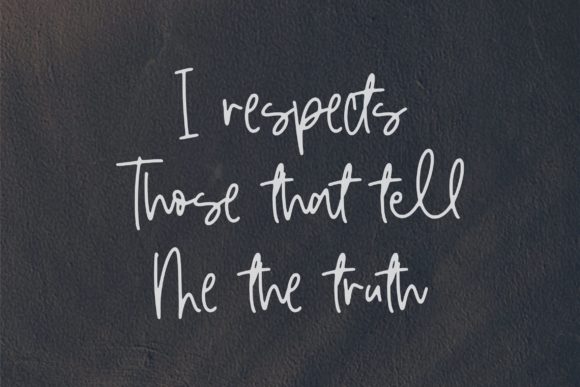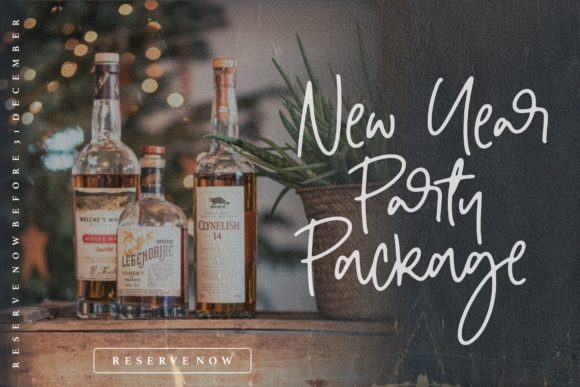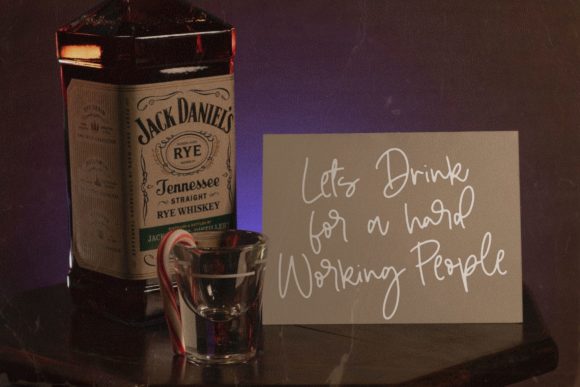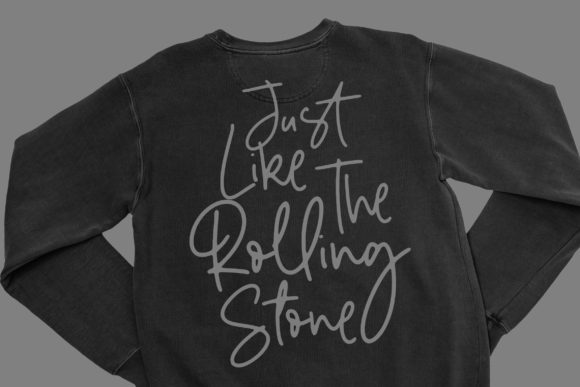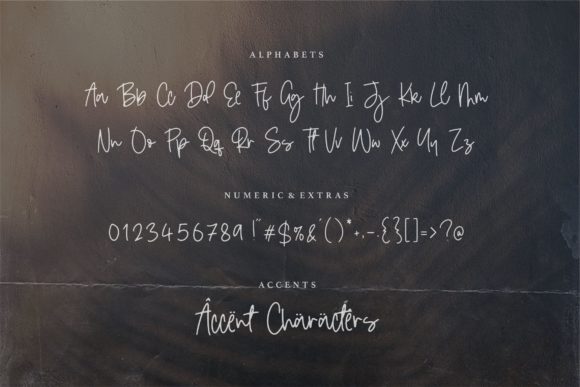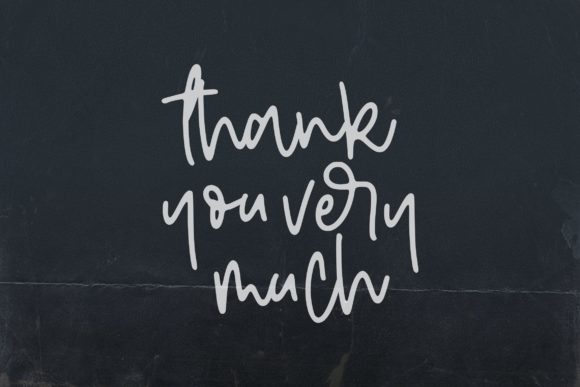
The Magic of Blackfeast Font: A Designer’s Delight
I’ll never forget the time I was working on a wedding invitation project, and my client asked for a font that was both elegant and playful. I scoured the internet, tried countless fonts, but nothing seemed quite right. That was until I stumbled upon Blackfeast Font. It was like a breath of fresh air – delicate, yet timeless, and perfect for adding a handwritten touch to any design.
A Personal Review of Blackfeast Font
- ✨ Incredibly distinct and elegant handwritten style
- ✅ Perfect for wedding invitations, thank you cards, and greeting cards
- 💫 Works beautifully for logos, business cards, and quotes
- 👍 Timeless design that never goes out of style
While Blackfeast Font is a stunning addition to any design, there are a few things to keep in mind:
- ⚠️ May not be suitable for body text or long paragraphs due to its delicate nature
The Story Behind Blackfeast Font
Blackfeast Font was designed with the intention of creating a timeless, elegant handwritten font. The designer aimed to craft a font that would be both delicate and sophisticated, perfect for adding a personal touch to any design. While the exact story behind the font’s creation may be unknown, its beauty and versatility have captured the hearts of designers worldwide.
| Font Name | Blackfeast Font |
| Author | letterativestudio |
Q: What type of projects is Blackfeast Font best suited for?
A: Blackfeast Font is perfect for wedding invitations, thank you cards, greeting cards, logos, business cards, and quotes.
Q: Is Blackfeast Font available in different weights or styles?
A: Blackfeast Font is a single-weight font. However, you can experiment with different sizes, colors, and formatting options to achieve the desired effect.